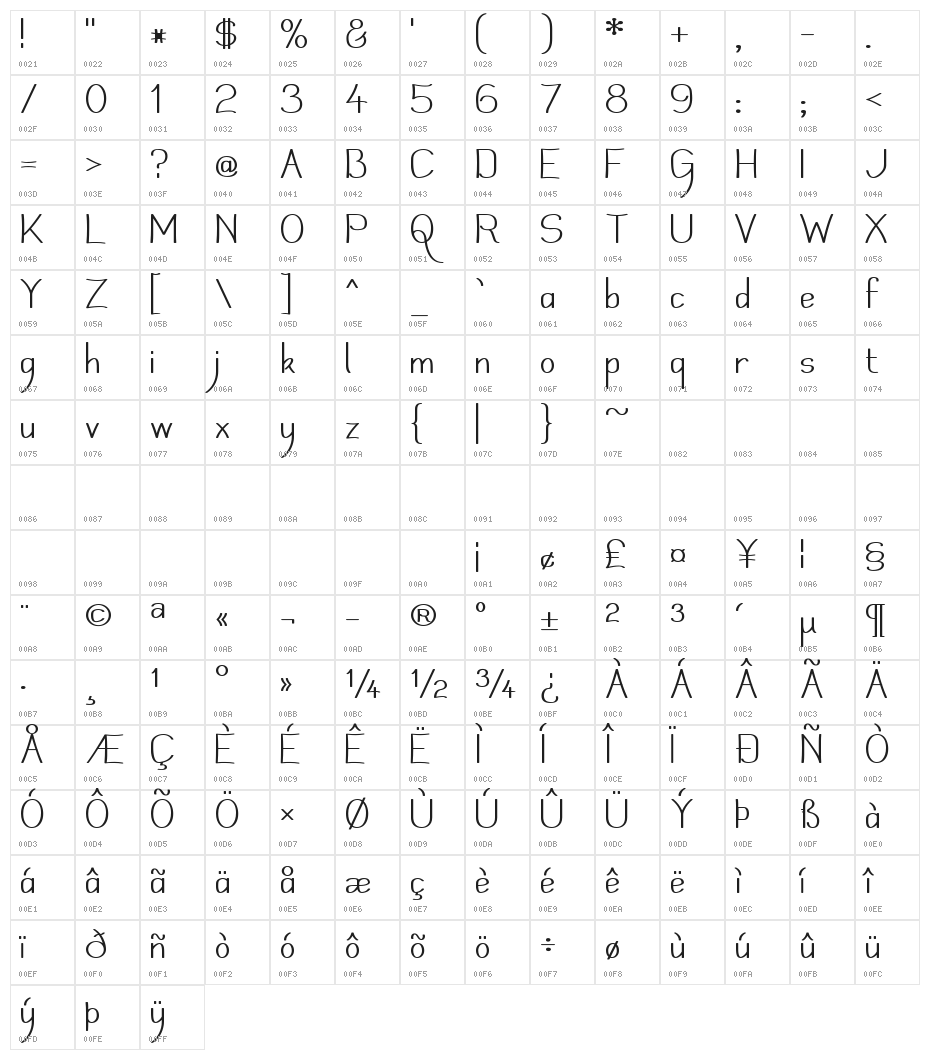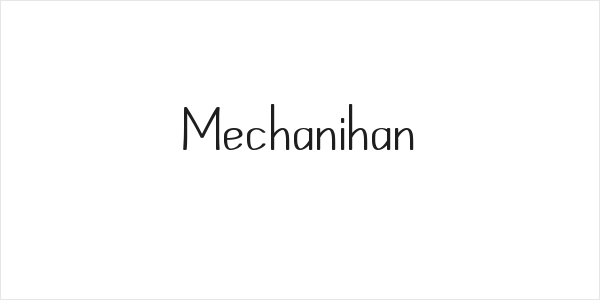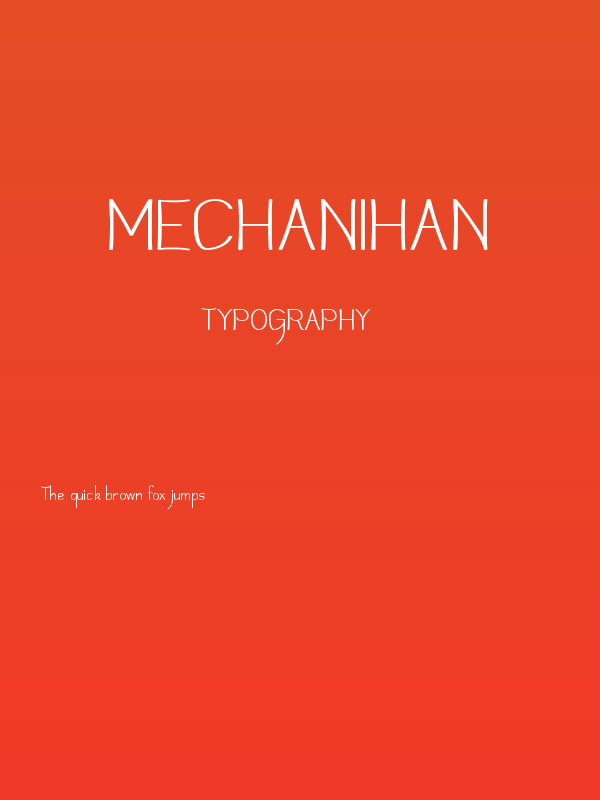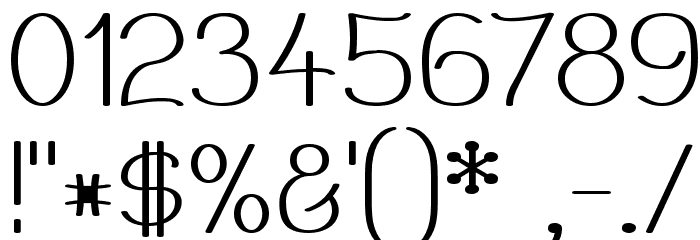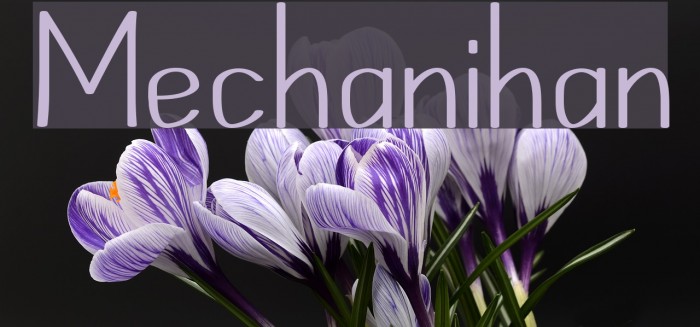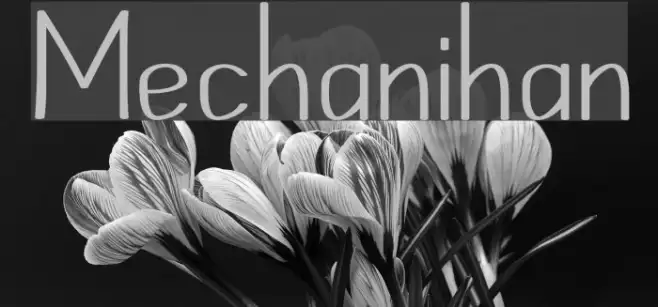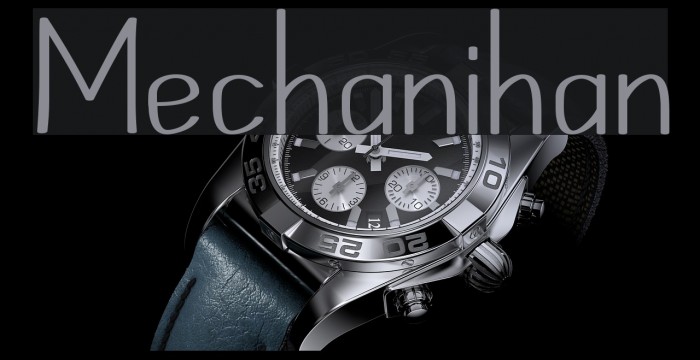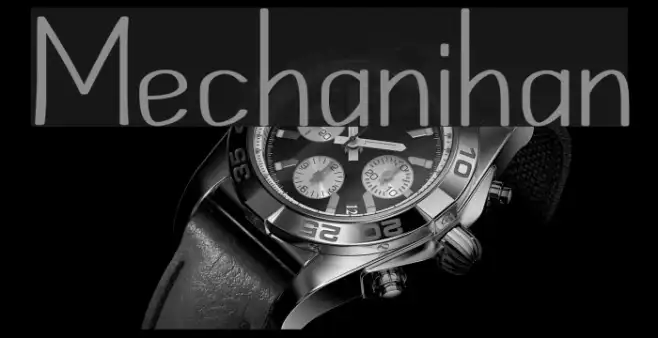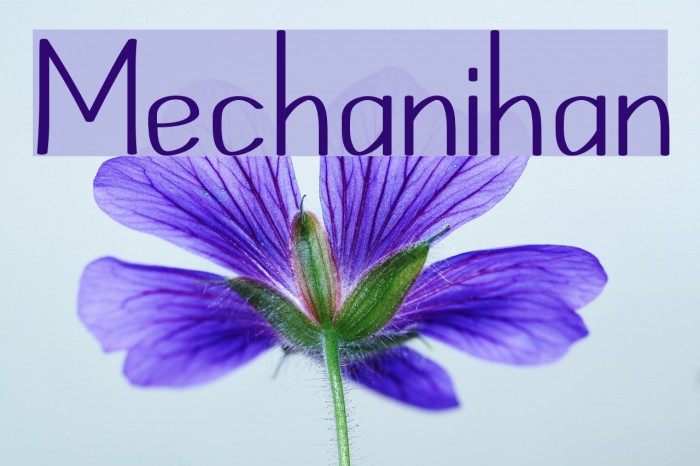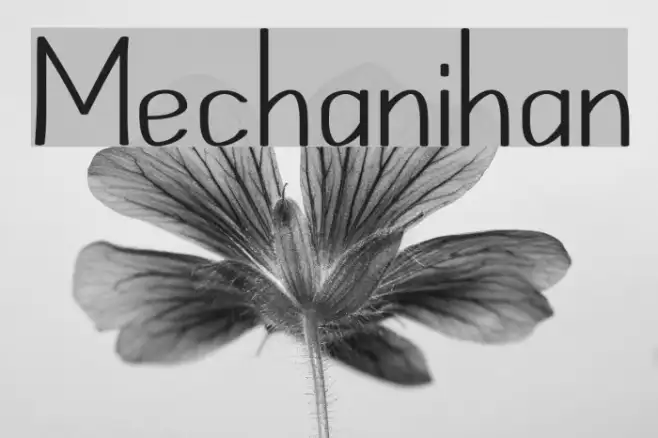
Mechanihan Font
Mechanihan Description
This font features a playful and slightly whimsical design, characterized by its rounded, smooth curves and a casual, handwritten feel. The uppercase letters are tall and slender, with a consistent stroke width that gives them a clean and modern appearance. The lowercase letters maintain a similar style, with some unique touches like the looped descenders on 'g' and 'y'. The numerals are straightforward and align well with the overall aesthetic, while the special characters add a touch of personality with their distinctive shapes. This font strikes a balance between readability and artistic flair, making it versatile for various design applications.
| Use Case | Headlines, Logos, Casual text |
| Proposed Projects | Ideal for children's books, casual branding, greeting cards, and playful packaging designs. |